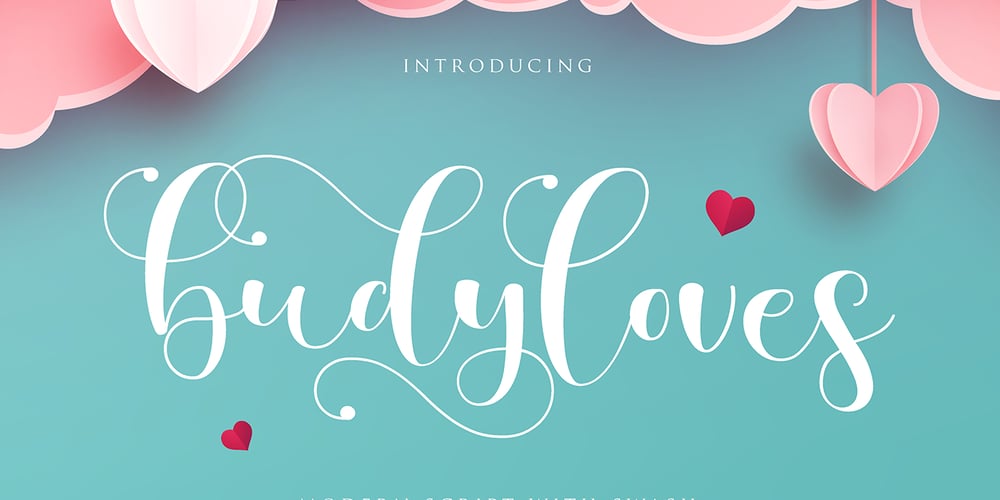
Budyloves Font Family was designed by Gumilar Pratama Adiatna and published by Gilar Studio. Budyloves contains 1 styles and family package options. budyloves is a beautiful and flowing handwritten font with love.It looks beautiful on a variety of designs requiring a personalized style, such as wedding invitations, thank you cards, weddings, greeting cards, logos and so on.This font is PUA encoded which means you can access all of the glyphs and swashes with ease!budyloves a new fresh & modern script with a handmade calligraphy style, decorative characters and a dancing baseline! So beautiful on invitation like greeting cards, branding materials, business cards, quotes, posters, and more!!The alternative characters were divided into several Open Type features such as alternate,Titl, Stylistic Sets. The Open Type features can be accessed by using Open Type savvy programs such as Adobe Illustrator, Adobe InDesign, Adobe Photoshop Corel Draw X version, And Microsoft Word. And this Font has given PUA unicode (specially coded fonts). so that all the alternate characters can easily be accessed in full by a craftsman or designer.You can mix and match with Opentype feature:More than 315 of glyphsAlternatesTitl UppercaseStylistic sets from ss01 to ss04Multilingual LanguageIf you don’t have a program that supports OpenType features such as Adobe Illustrator and CorelDraw X Versions, you can access all the alternate glyphs using Font Book (Mac) or Character Map (Windows).To Access Alternate Characters Click The Link Below:Adobe illustrator CS https://www.youtube.com/watch?v=geL0Ye02RykAdobe illustrator CC https://www.youtube.com/watch?v=V25yiUh8BcEMs Word https://www.youtube.com/watch?v=HxkhZiCuwEwCoreldraw X7 https://www.youtube.com/watch?v=UBVsufJjonsAdobe Photoshop CC https://www.youtube.com/watch?v=BYKXl58AdNYIndesign CS https://www.youtube.com/watch?v=HgZTCxKG14QCheck my other Font here : https://gilarstudio.com/Thanks and happy designing :-)Thank You for purchase!